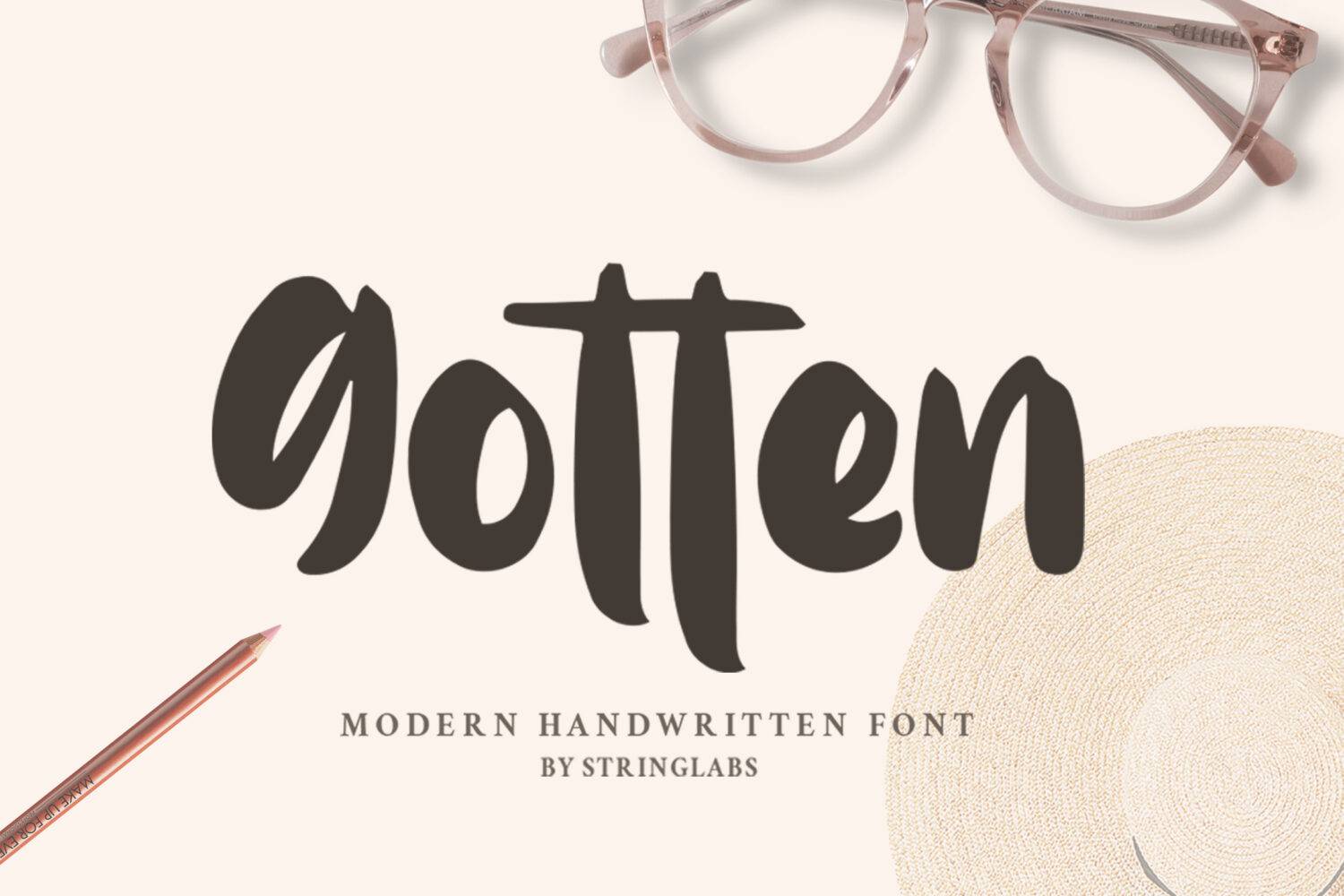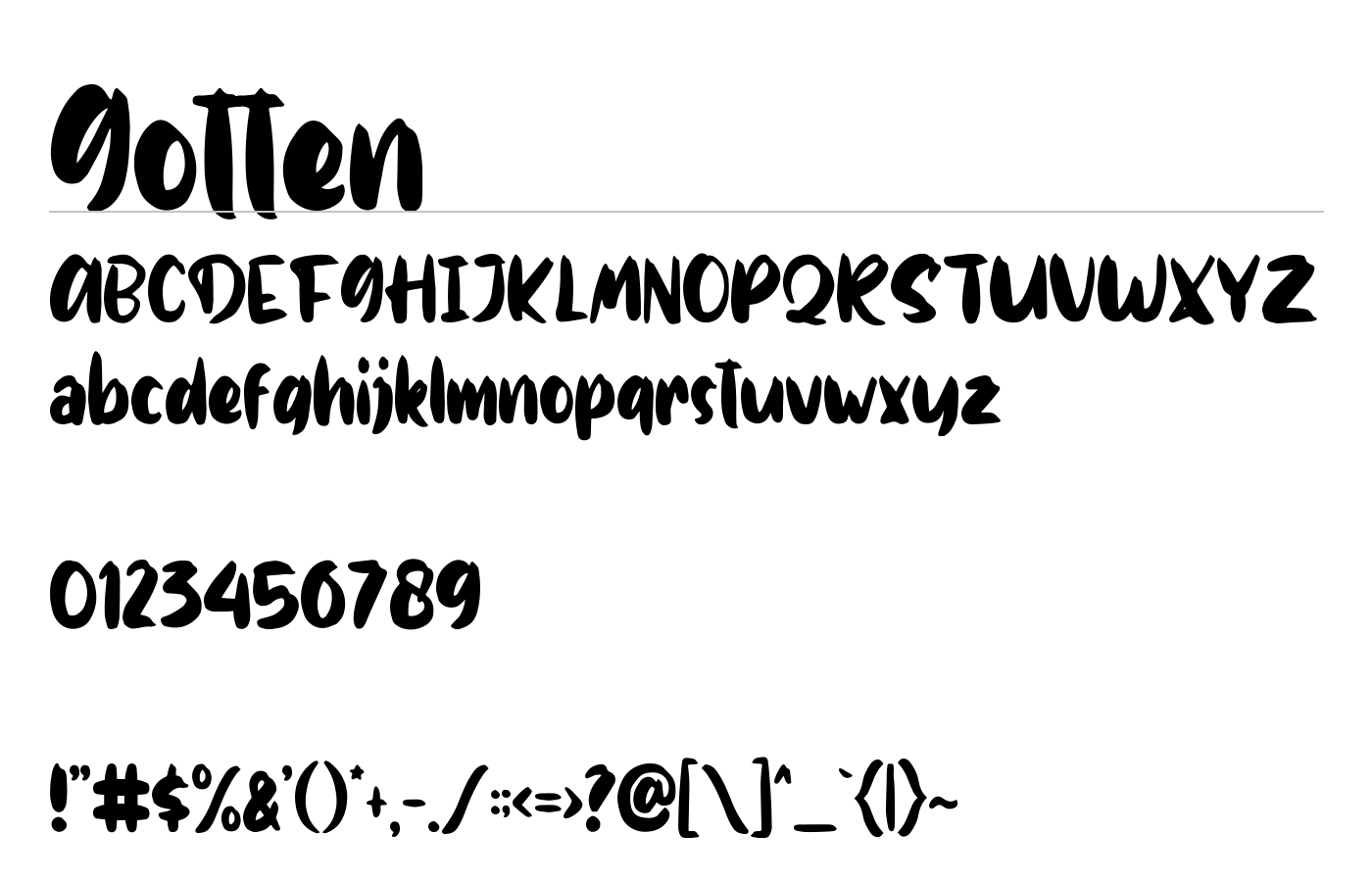
Gotten is a bold, playful handwritten font with a casual and approachable vibe. Its thick, irregular strokes and lively letterforms make it perfect for creative projects, branding, and informal designs that want to convey energy and friendliness. This font works well in headlines, logos, and packaging where a fun, unique personality is desired.
Gotten Font
About Gotten Font
| Font family | Gotten Font |
| Designer | Stringlabs |